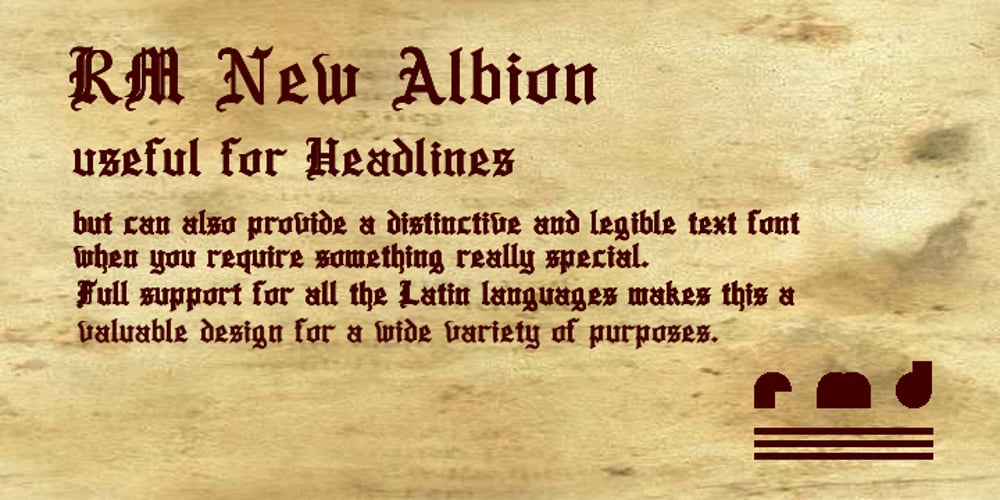
RM New Albion Font Family was designed by Ray Meadows and published by Ray Meadows. RM New Albion contains 1 styles and family package options. A classic blackletter Which looks best at 16pt and above. Due to the modular nature of this design there may be a slight lack of smoothness to the curves at very large point sizes (around 100 pt and above).